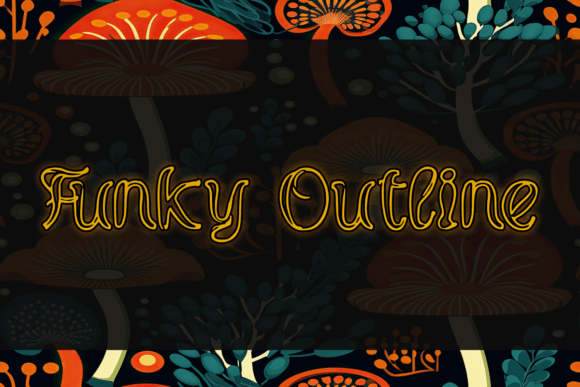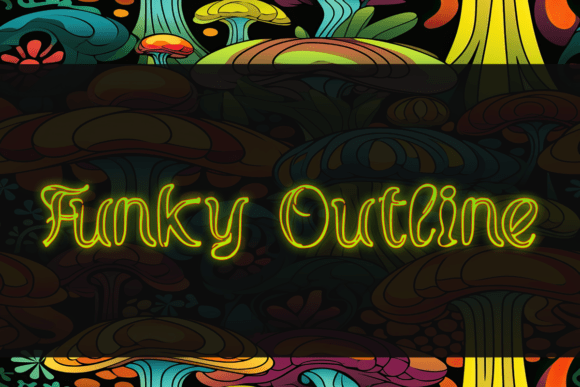
Introduction to Funky Outline Font
Infuse a splash of style and boldness to your branding, logos, blogs, and headings with the Funky Outline font.
Ideal for advertising initiatives, this font offers a unique twist, turning ordinary text into engaging and vibrant visual communication Captivate your audience with Funky Outline – where creativity meets readability.
Key Features of Funky Outline Font
Why Choose Funky Outline Font?
Funky Outline Font offers exceptional quality and versatility, making it a valuable addition to your design toolkit. Whether you’re creating for personal projects or commercial use, Funky Outline Font delivers professional results.